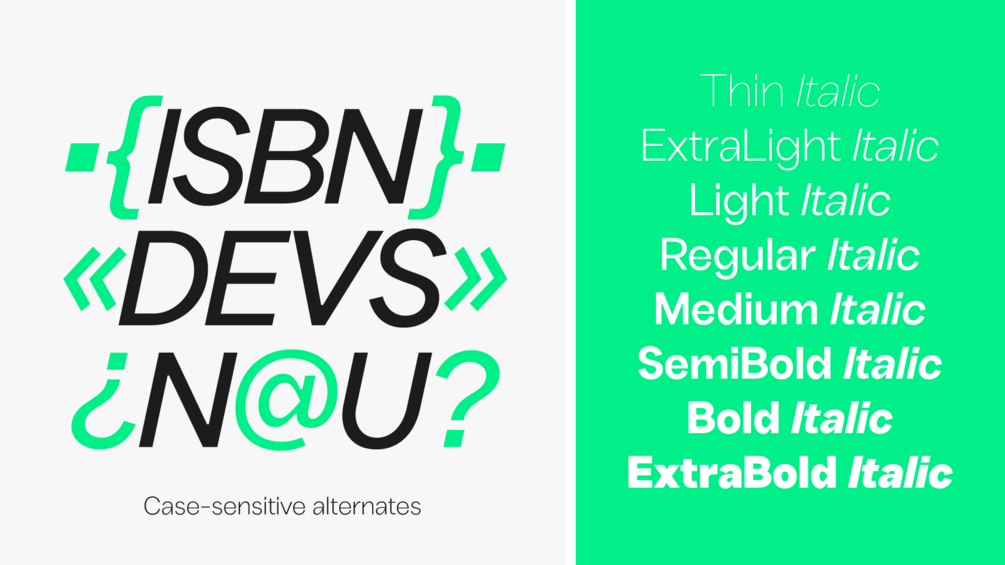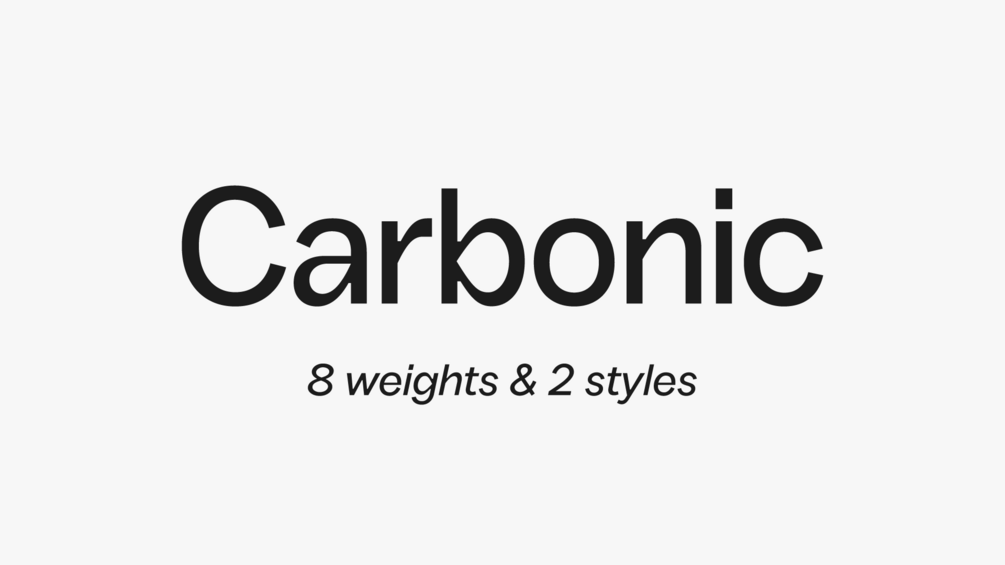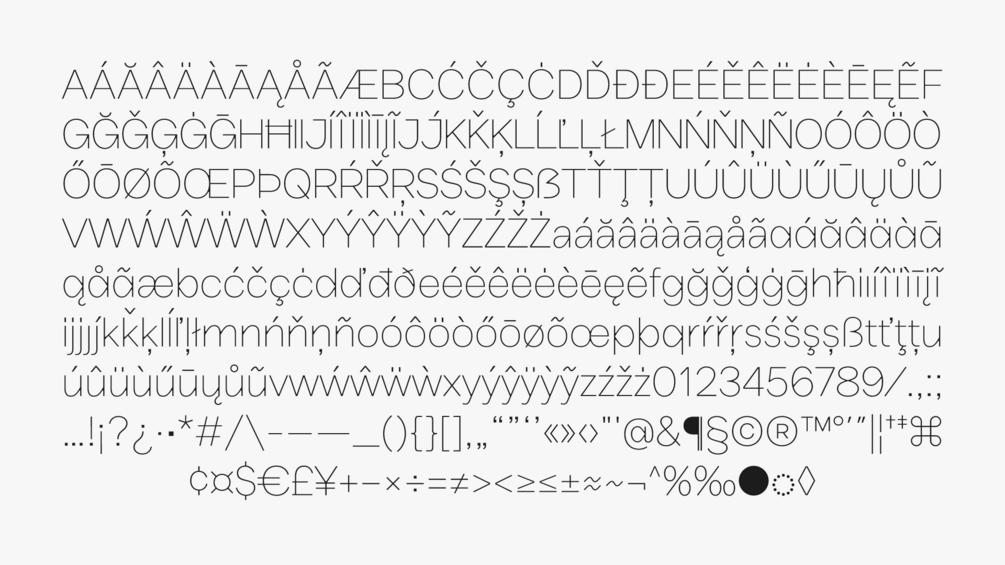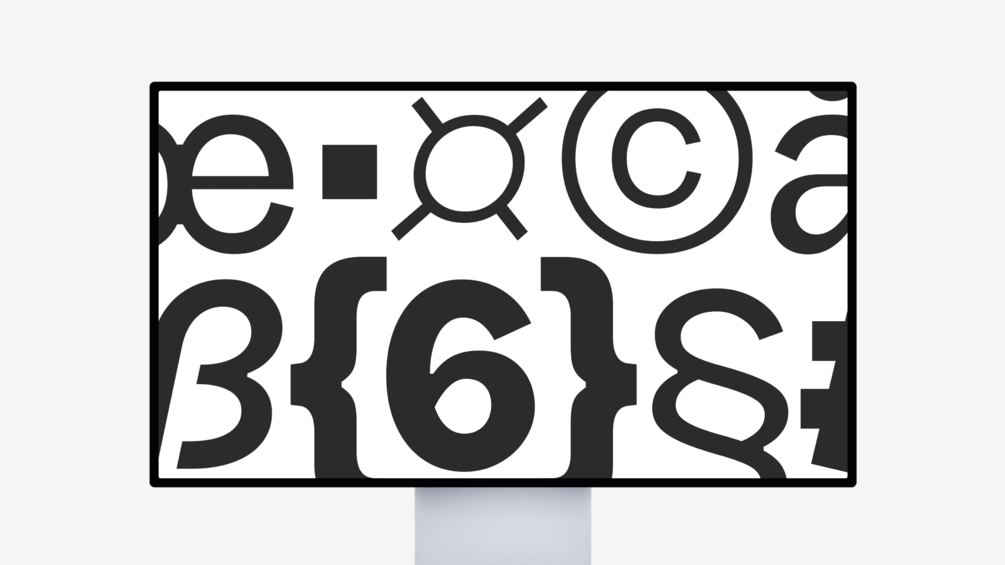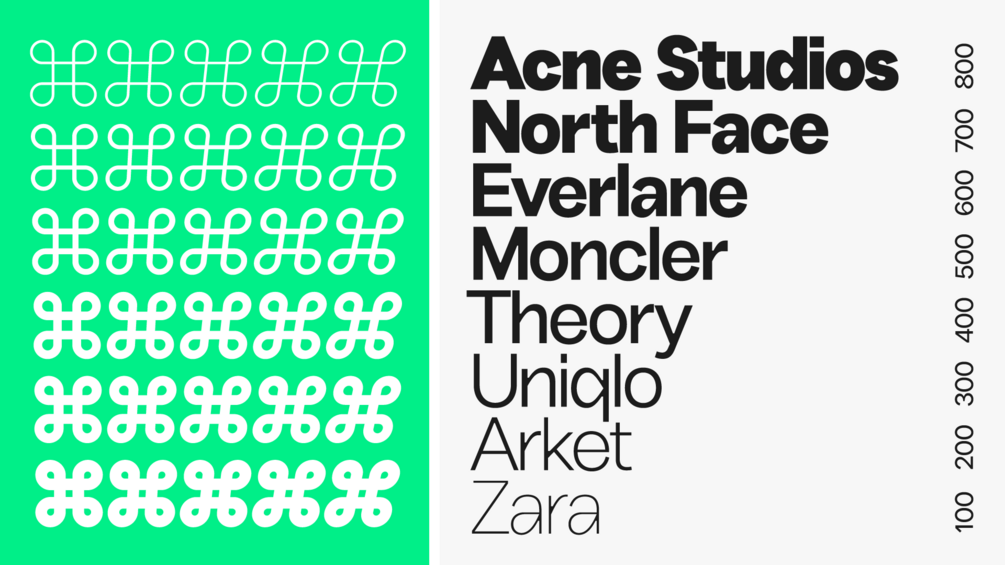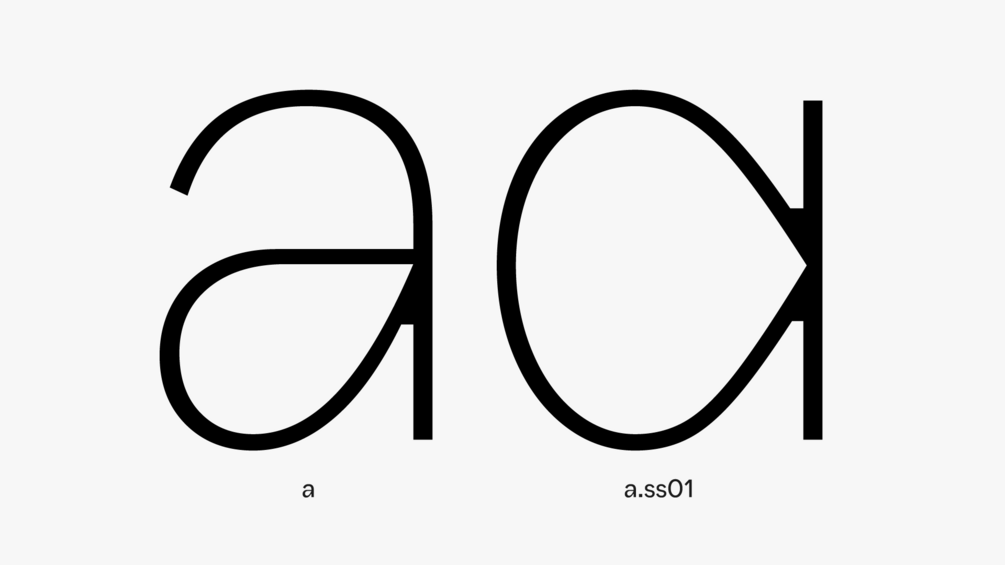
POI Carbonic
Our most robust release yet—introducing POI Carbonic. With unique design features in the inktraps and counterforms, POI Carbonic is sure to make your next project stand out. Best of all, you can try out all of the fonts—with their complete character sets and OpenType features—for free before you purchase a license.
Carbonic is available in 8 weights and 2 styles. A variable font is included when purchasing the entire family. Commercial licenses include both desktop and web use.